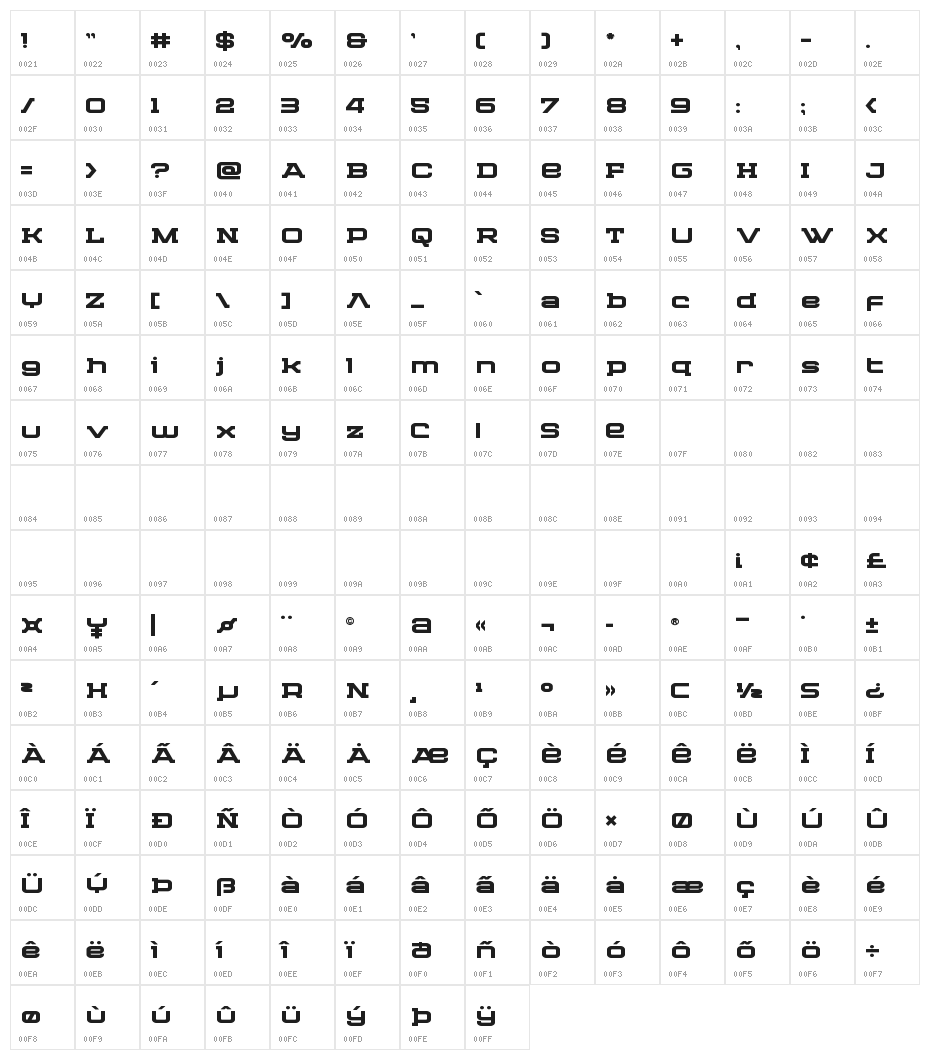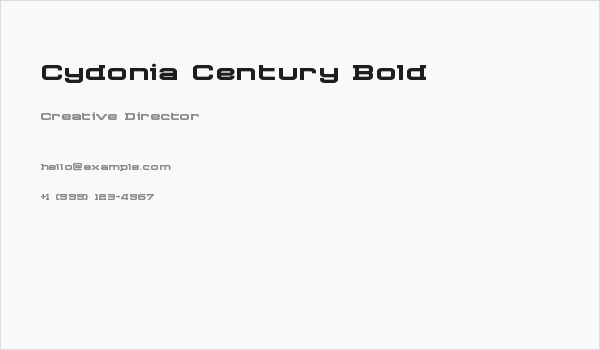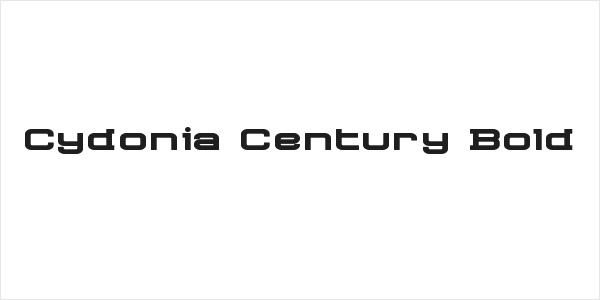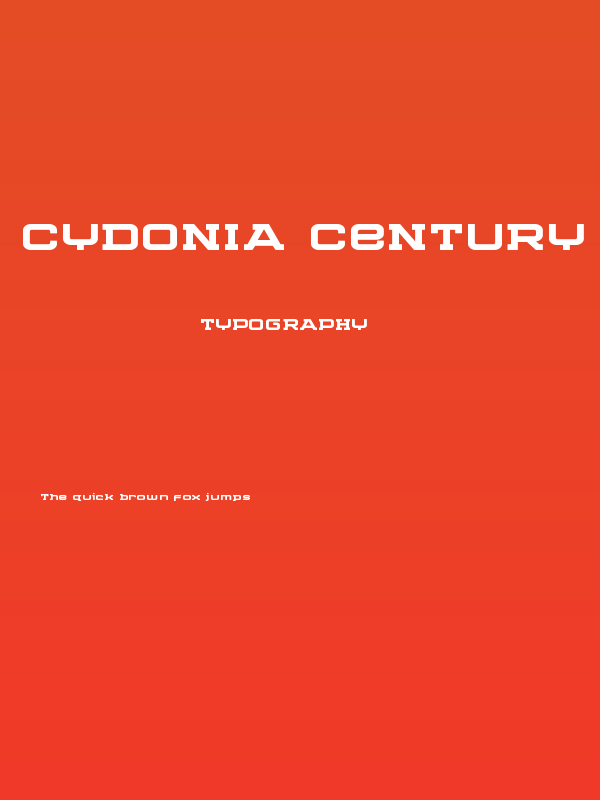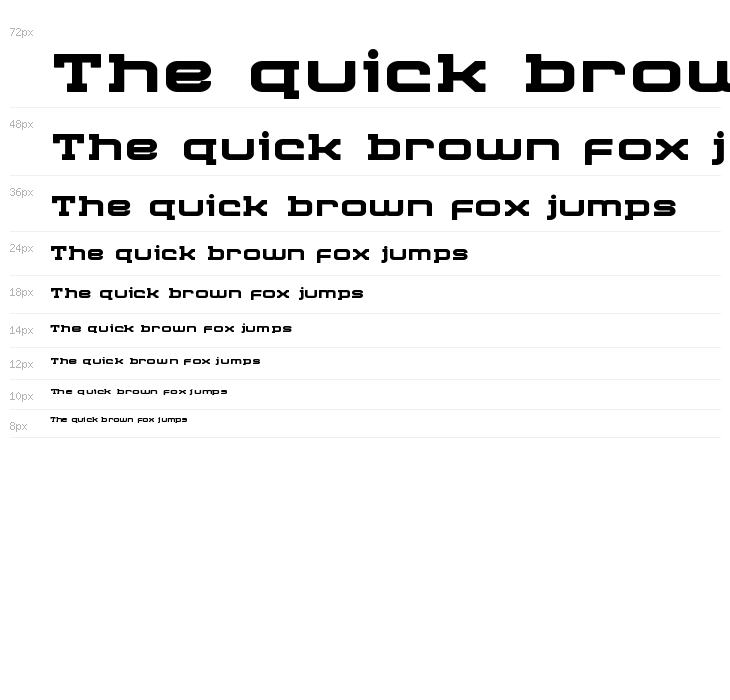
Cydonia Century Bold Font
Cydonia Century Bold Description
This font features a bold and modern design with a geometric structure. The characters are constructed with a consistent stroke width, giving it a uniform appearance. The uppercase letters are strong and assertive, while the lowercase letters maintain a similar weight, ensuring readability. The numerals are clear and distinct, matching the overall style of the alphabet. Special characters are well-integrated, maintaining the font's cohesive look. Its boldness and clarity make it suitable for impactful designs.
Proposed ProjectsIdeal for branding, headlines, posters, and digital media where a strong visual impact is desired.